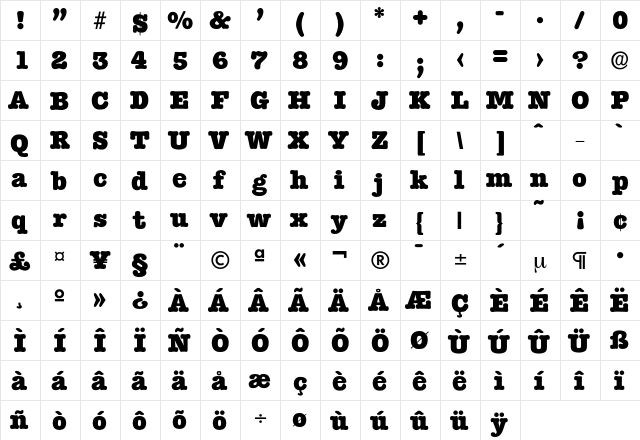
Typewriter-Heavy Regular
Design Context for Typewriter-Heavy Typeface
Typewriter-Heavy brings the precise, column-aligned rhythm of monospaced typography to designs that value technical clarity and systematic order.
Pro Tip: Pair Typewriter-Heavy with a proportional sans for UI contexts where code-style labels and regular body copy need to coexist.